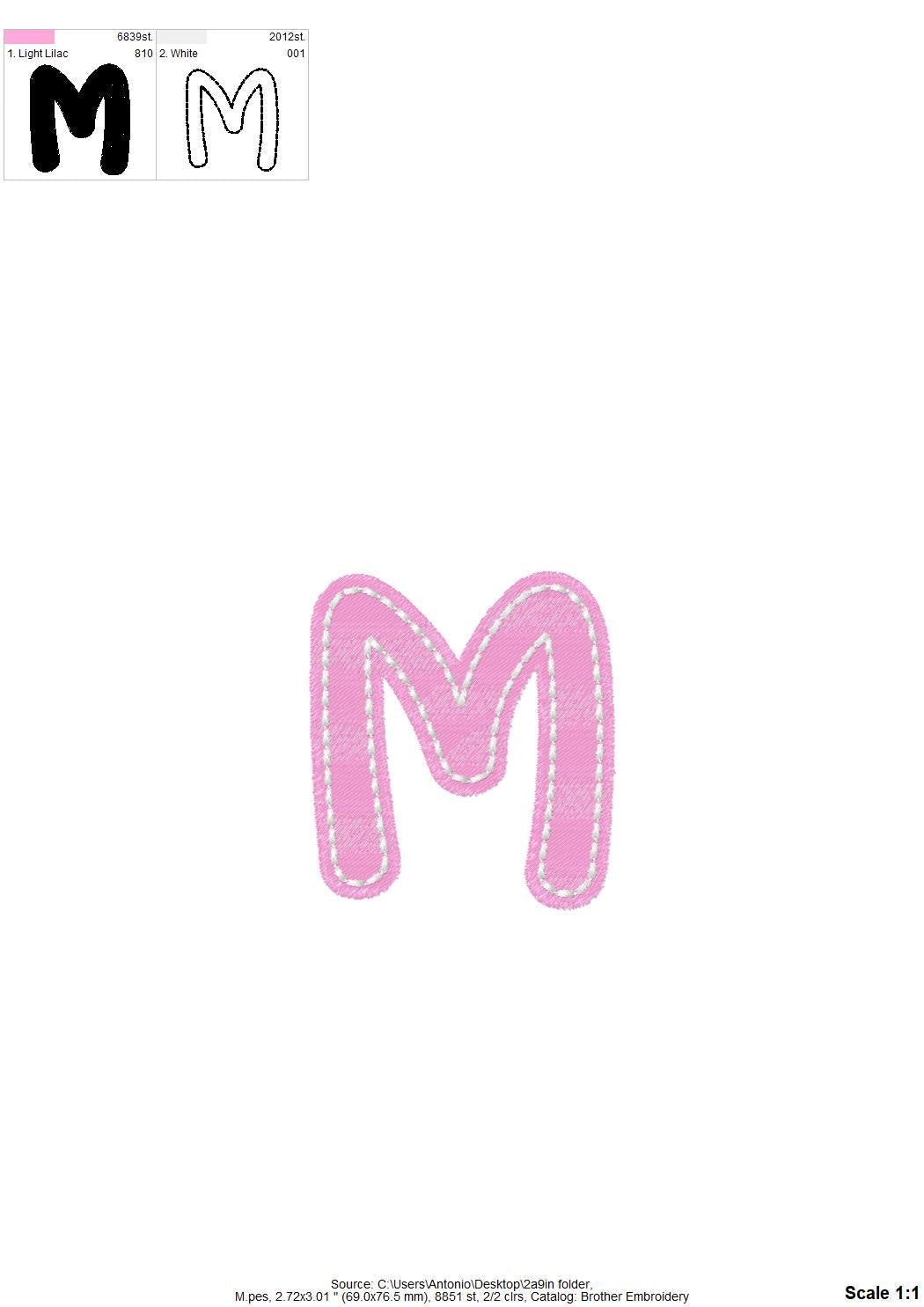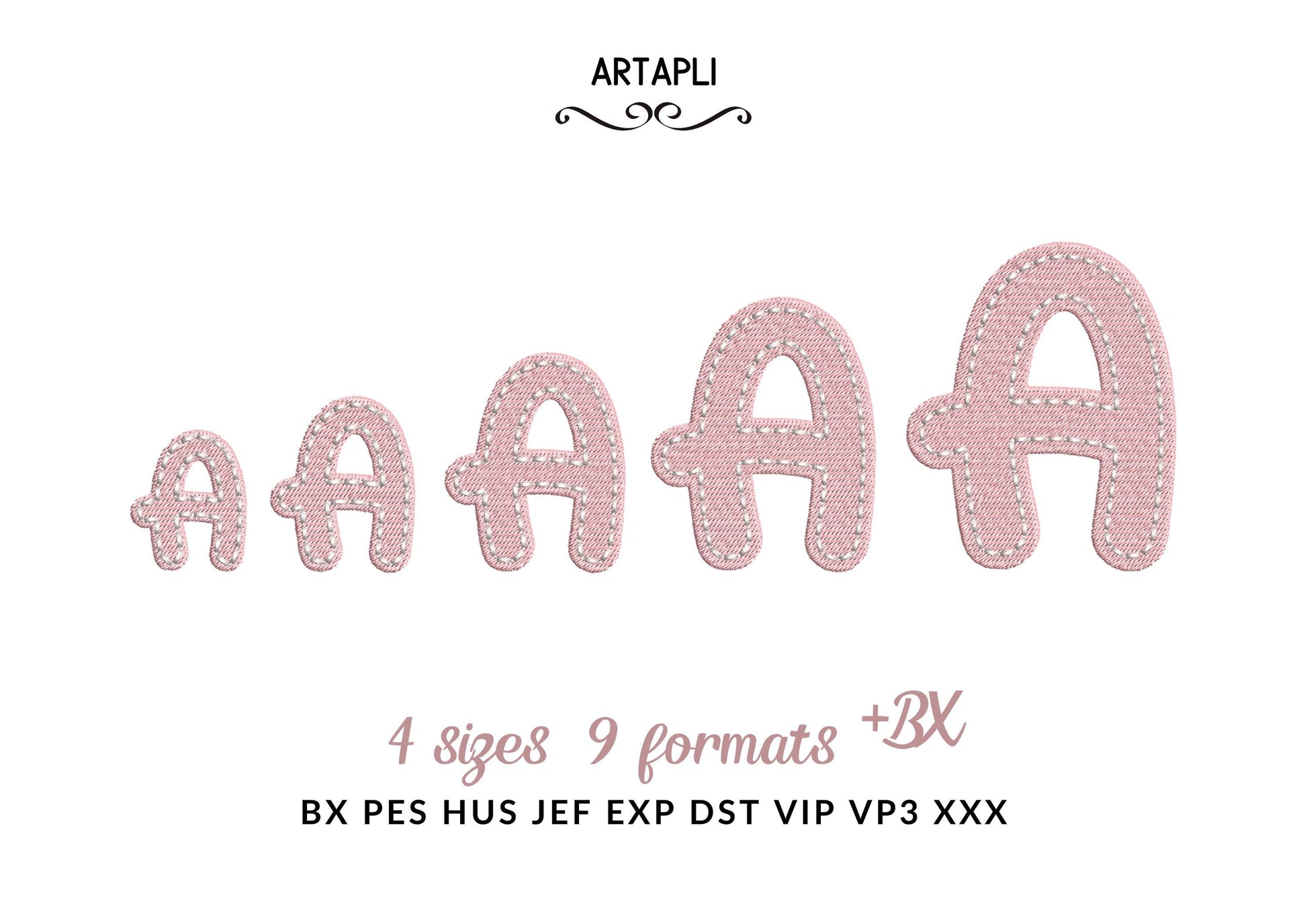
Or click to open the linkA rounded fill stitch font with a hand-stitched look on top. Friendly for names, monograms, kids' clothes and gifts.
The letters come in five sizes: 1.5, 1.9, 2.3, 2.9 and 3.5 inches. Rounded fill stitch letters with a running line on top that looks hand-stitched. Includes uppercase and lowercase letters A to Z, numbers 0 to 9 and punctuation.